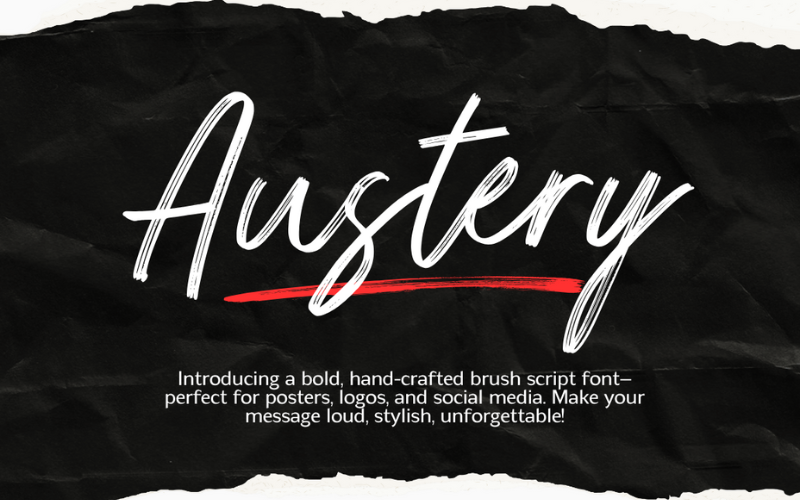
Austery – Brush Script Font Font
About Austery – Brush Script Font
Austery Brush is a bold and expressive script brush font that blends raw energy with elegant strokes. Handcrafted with a textured brush style, this font is perfect for logos, branding, posters, apparel, and creative headlines. Its dynamic flow and natural imperfections give your designs a personal, artistic touch — ideal for those who want to stand out with style and attitude.